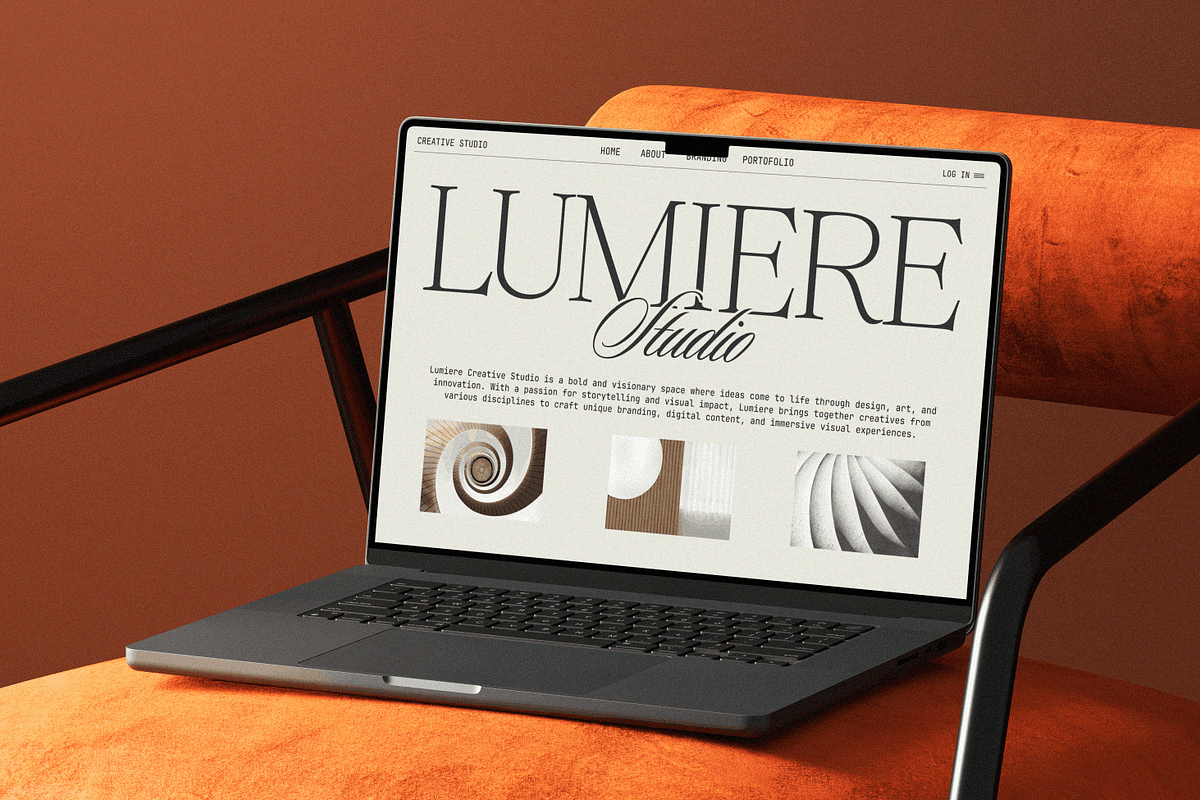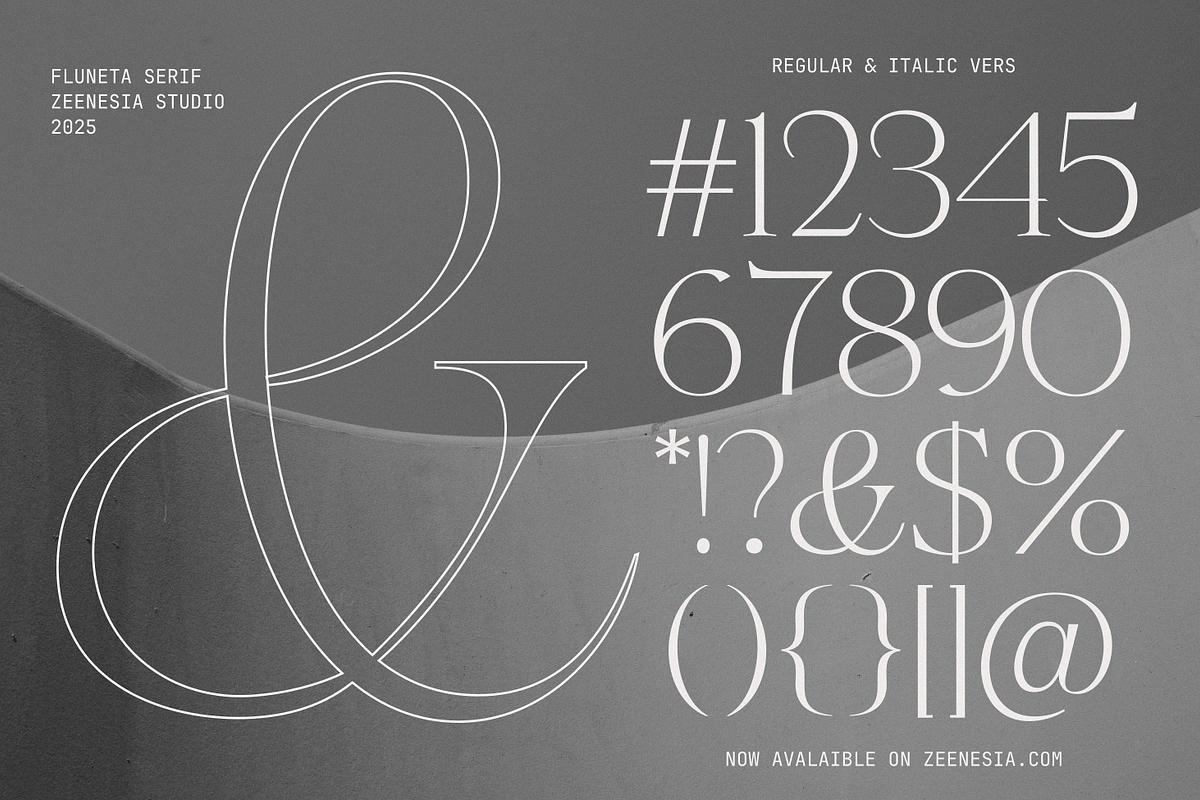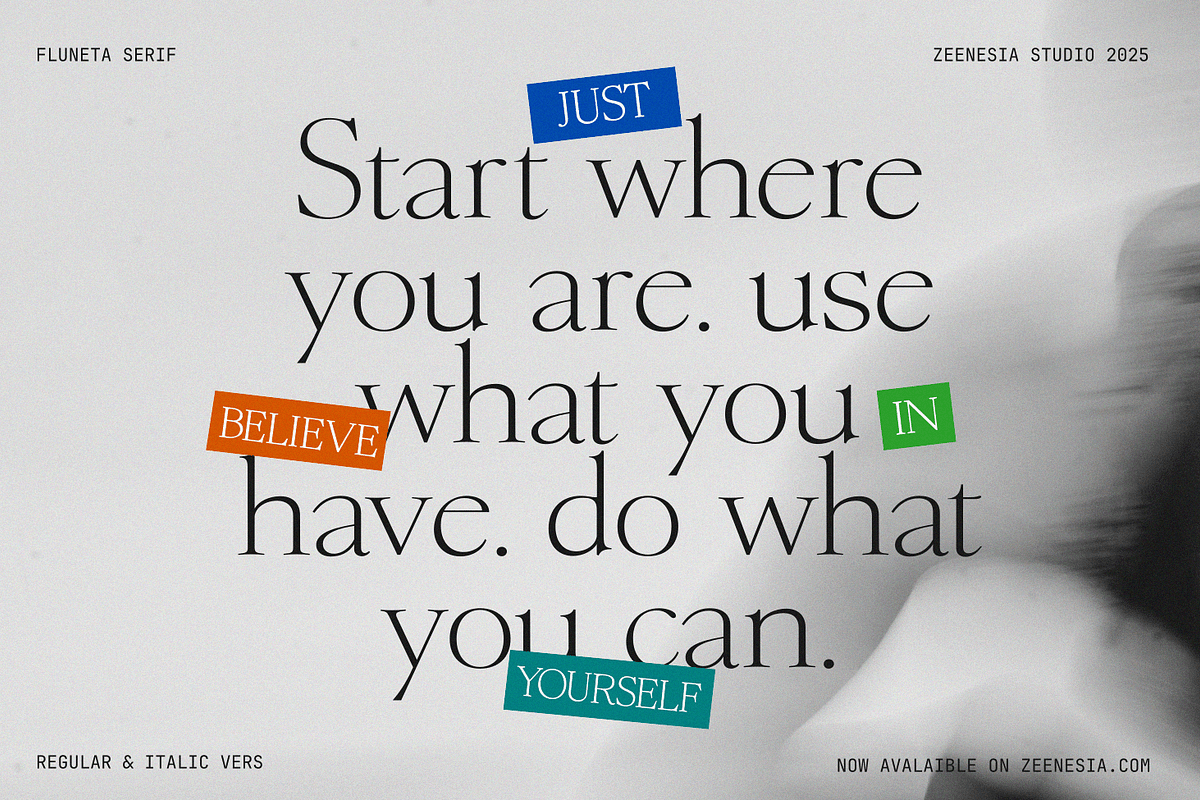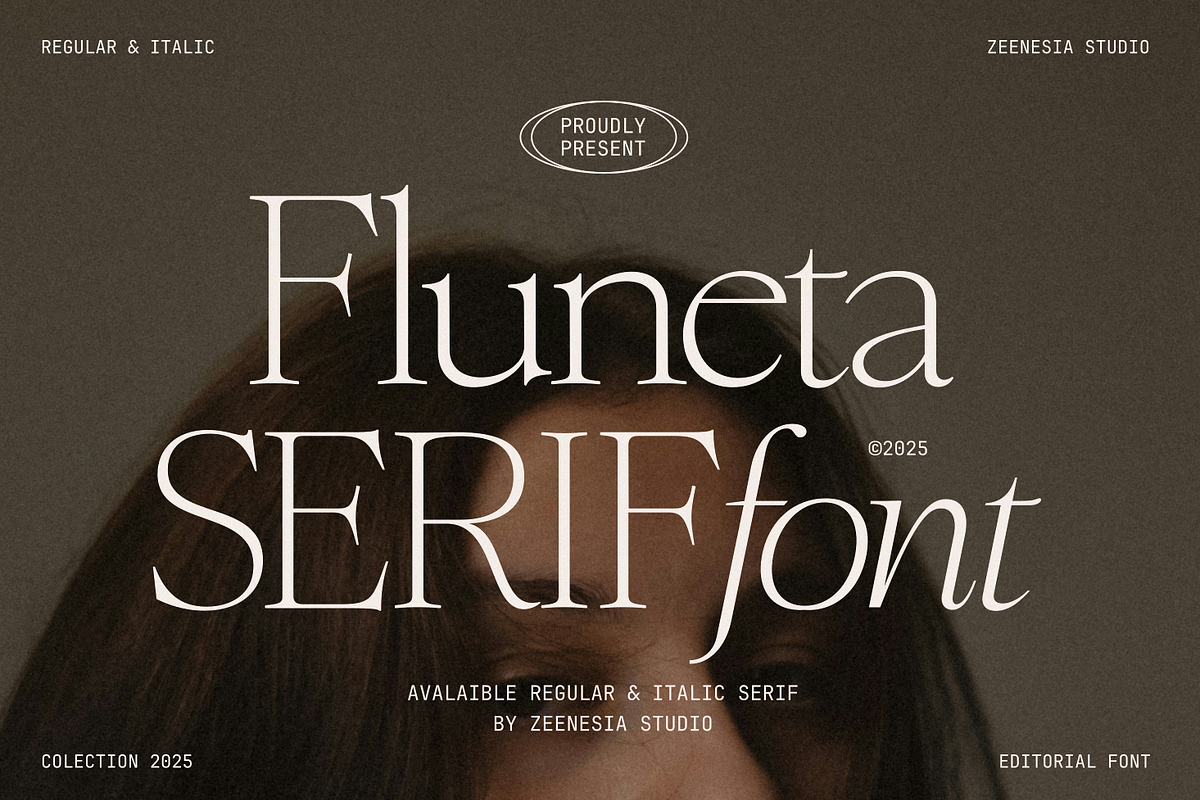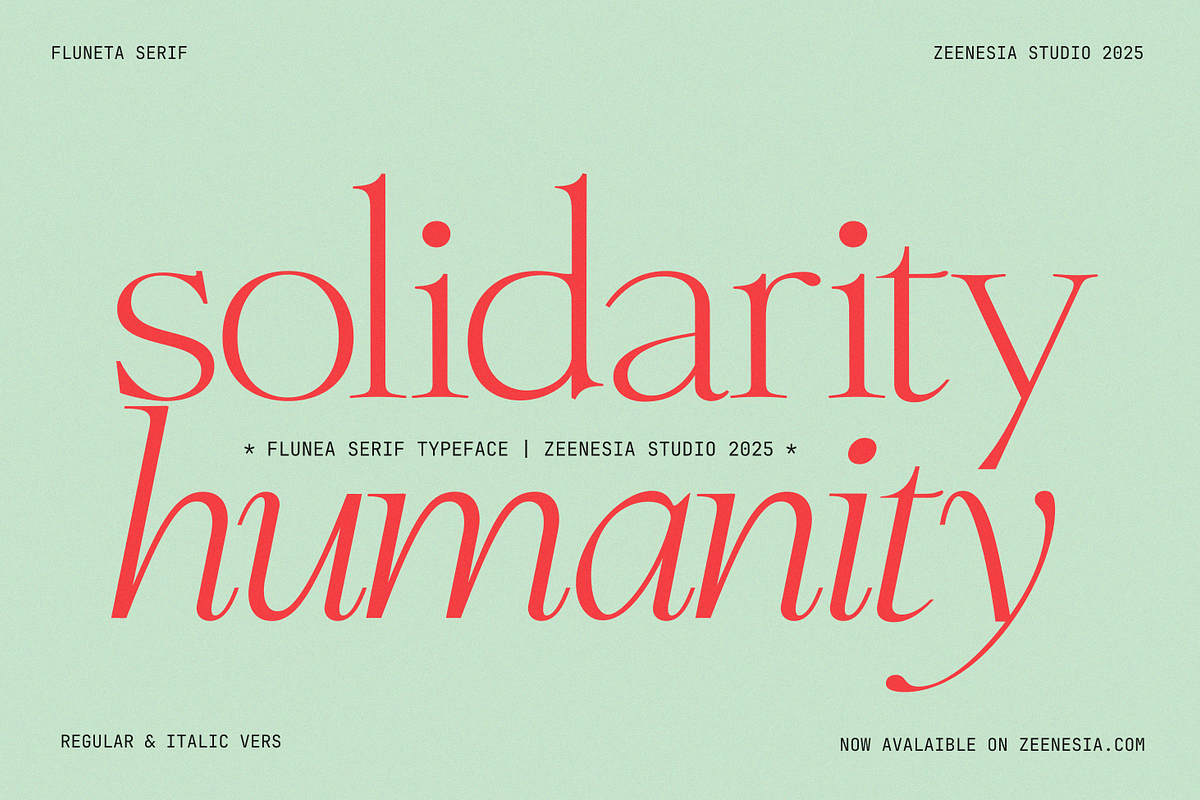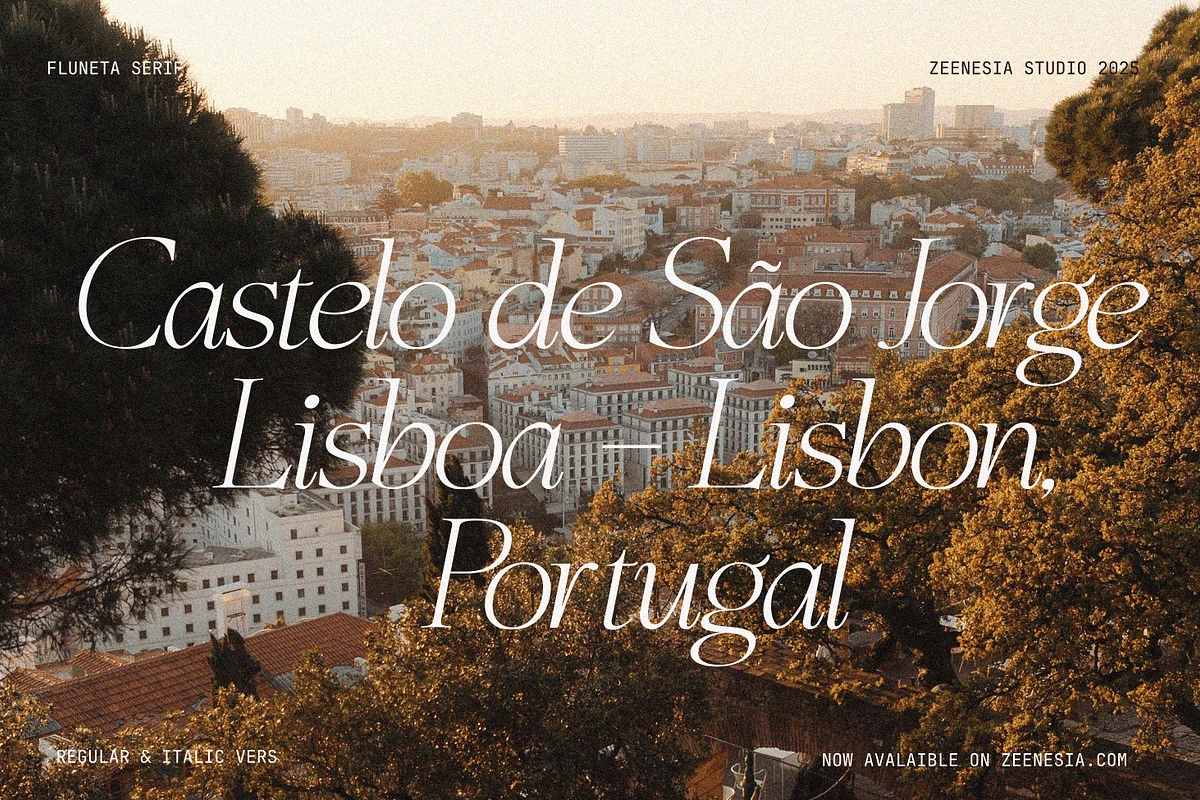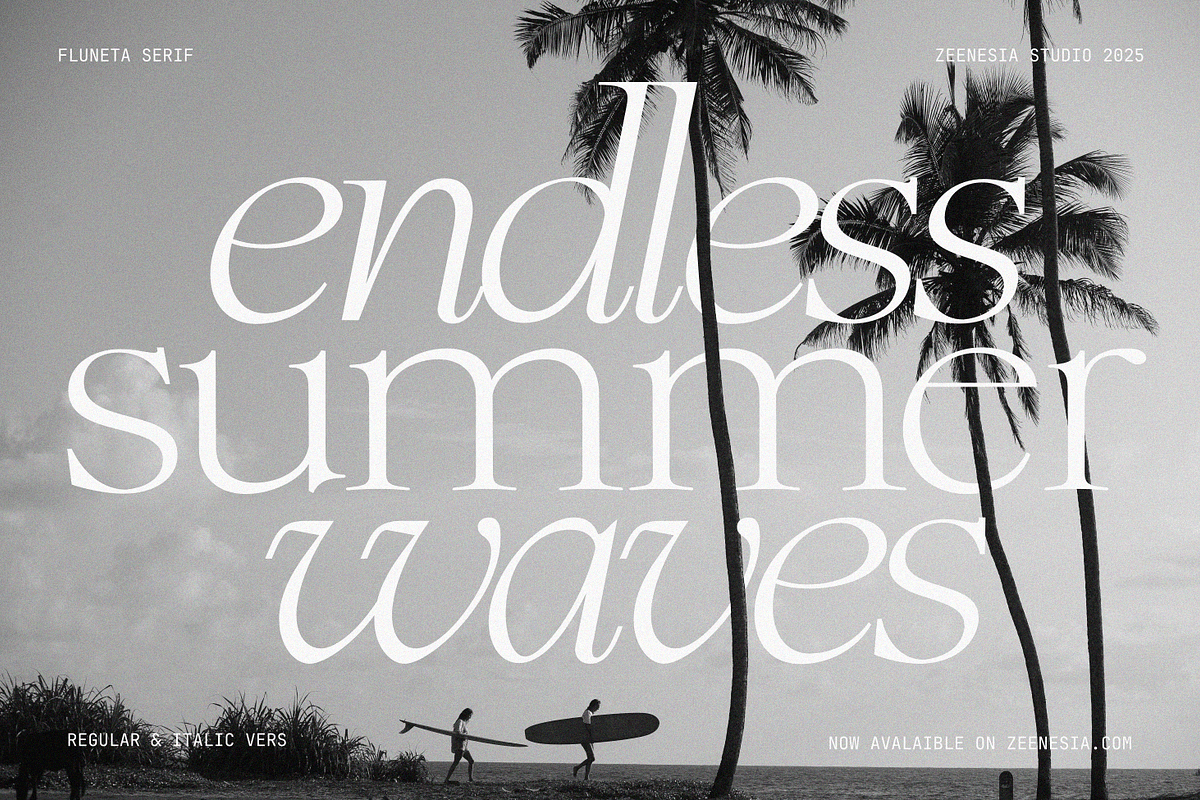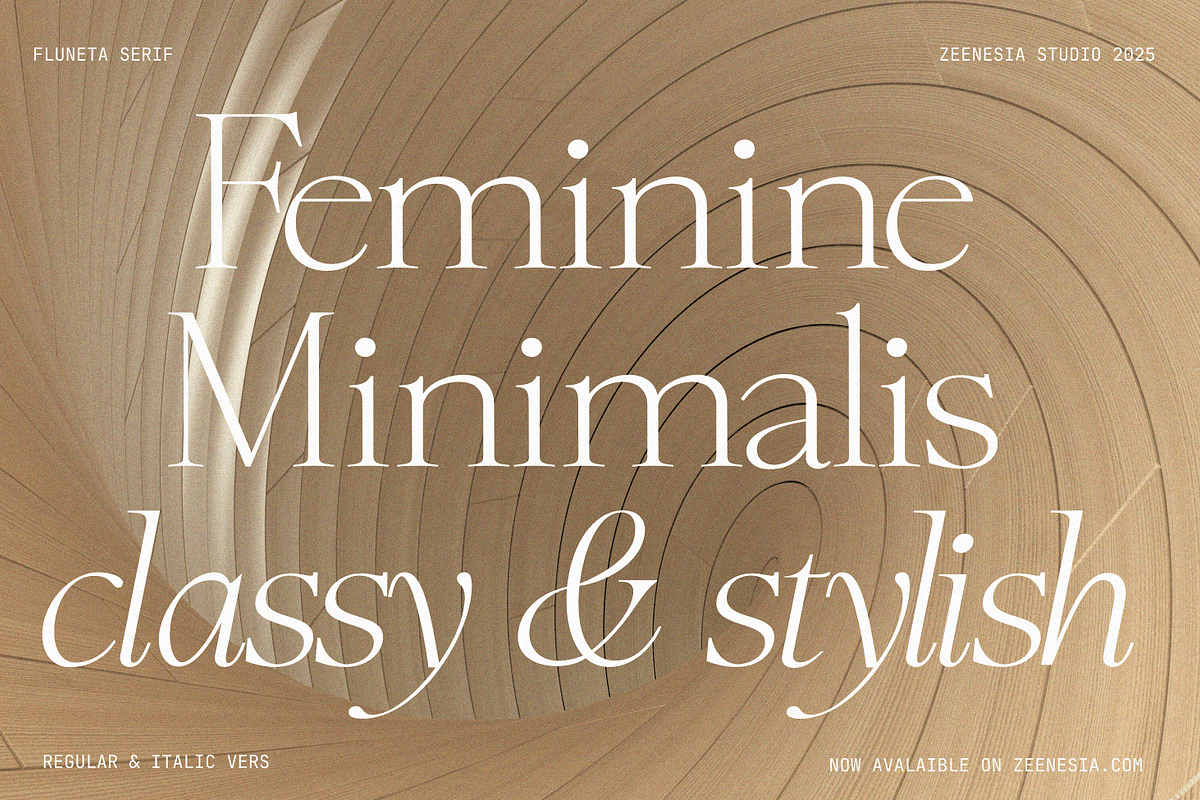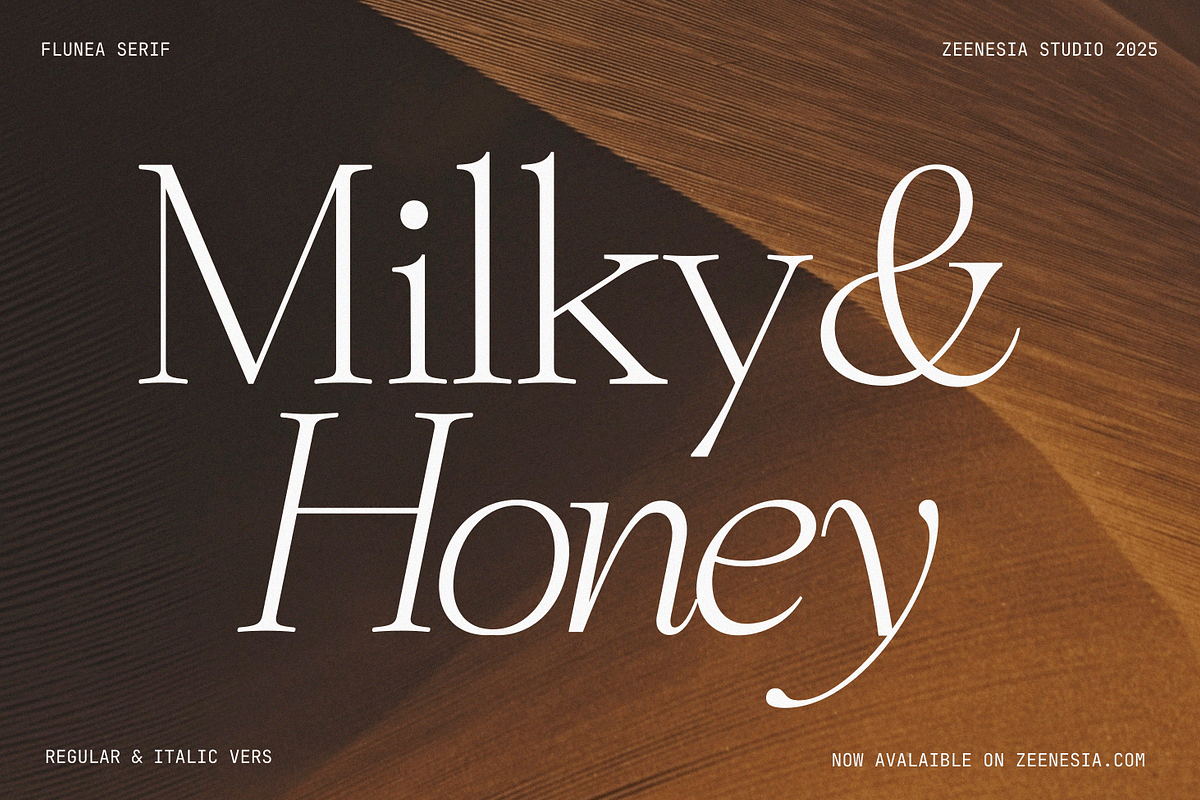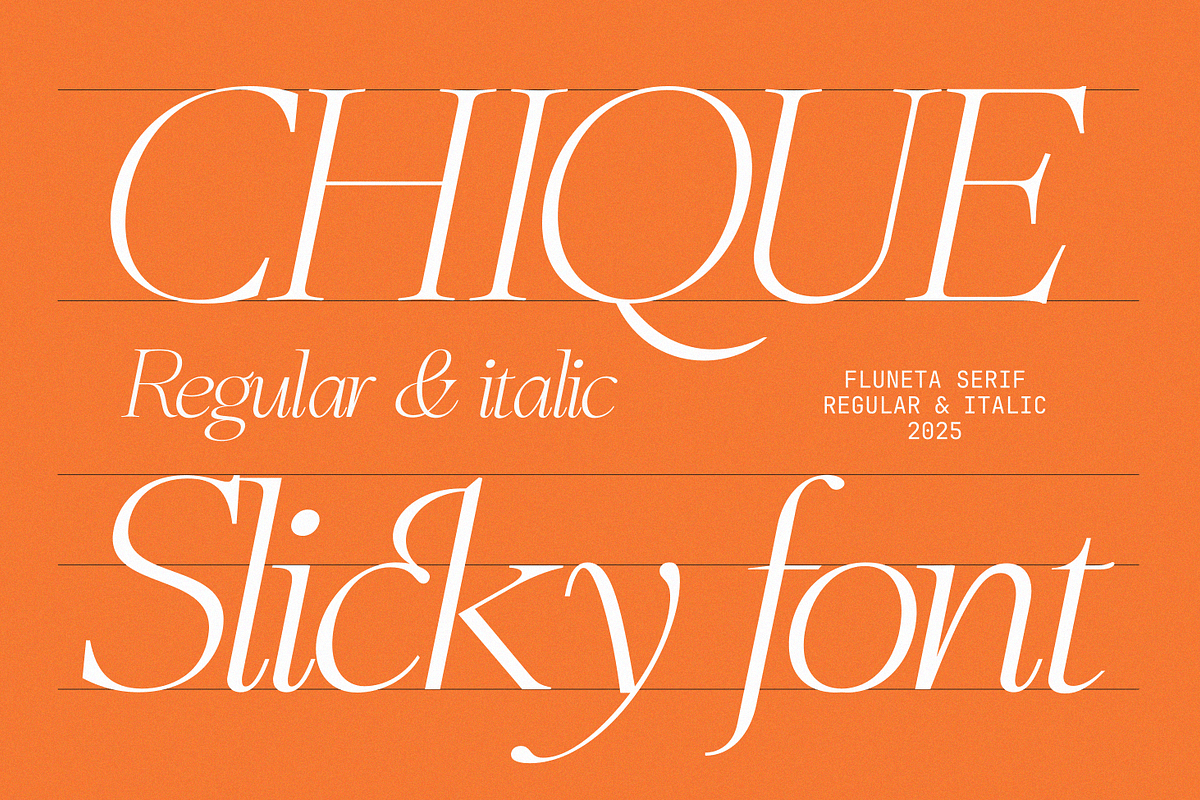
Fluneta
Fluneta is a refined serif typeface that blends classic elegance with a touch of modern charm. Available in Regular and Italic styles, Fluneta was designed to bring sophistication and clarity to any layout — whether in print or digital.
Its graceful serifs, balanced proportions, and subtle contrast make it ideal for editorial designs, branding, book covers, and elegant packaging. The Italic version flows beautifully with a gentle slant, adding personality and warmth without sacrificing readability.
Let Fluneta elevate your typography with timeless character and a clean, polished aesthetic. Perfect for designers who seek a serif with soul.